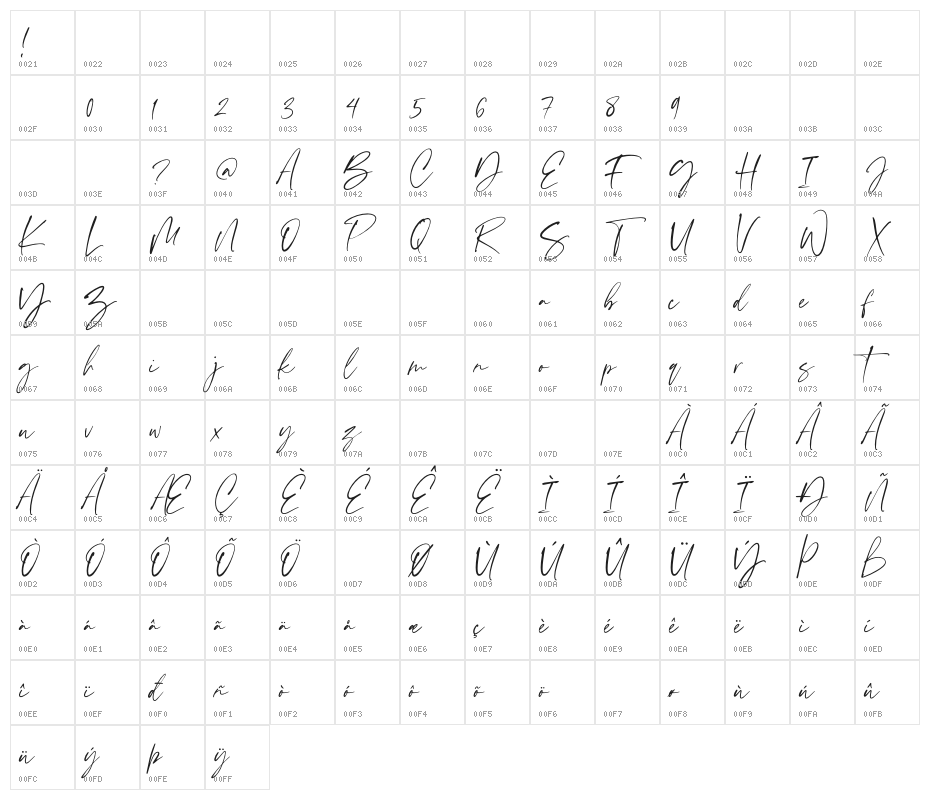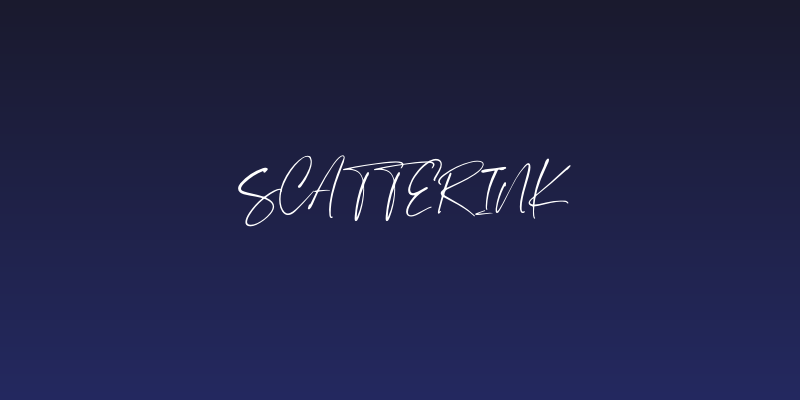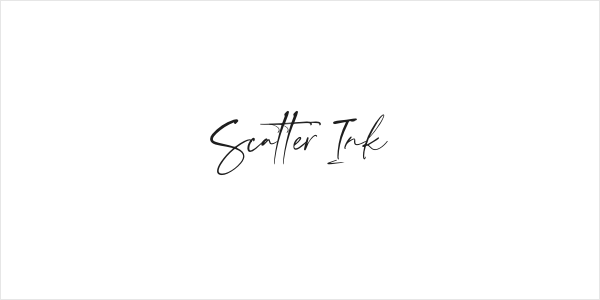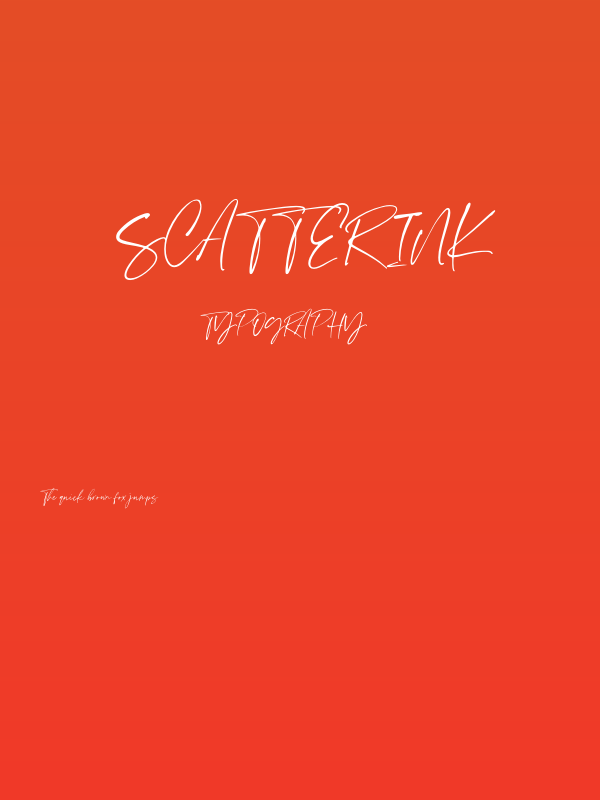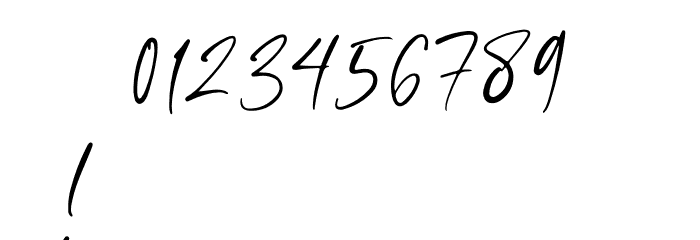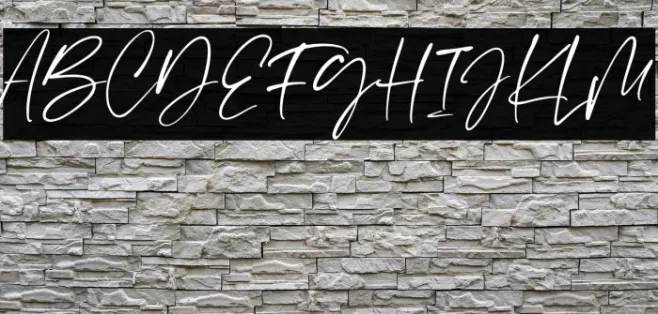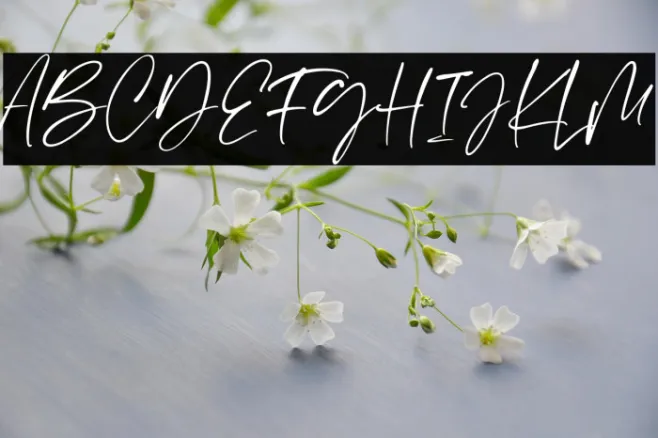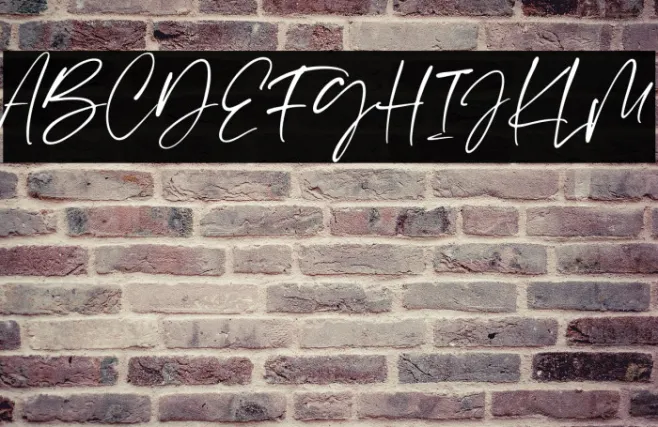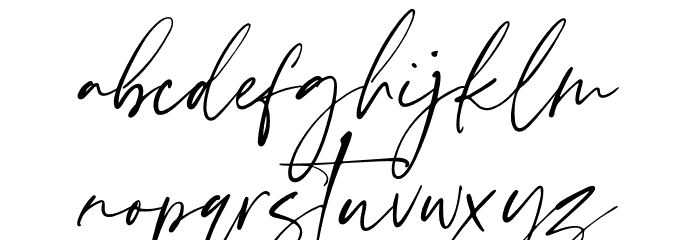
Scatter Ink Font
Scatter Ink Description
This font exudes a dynamic and expressive style, characterized by its fluid, handwritten appearance. The letters are crafted with a sense of movement, featuring varying stroke widths that add a lively and personal touch. The uppercase letters are bold and prominent, while the lowercase letters maintain a consistent flow, enhancing the overall cohesiveness. Numbers and special characters are designed with the same energetic flair, making them stand out. The font's organic and spontaneous feel makes it ideal for projects that require a personal or artistic touch.